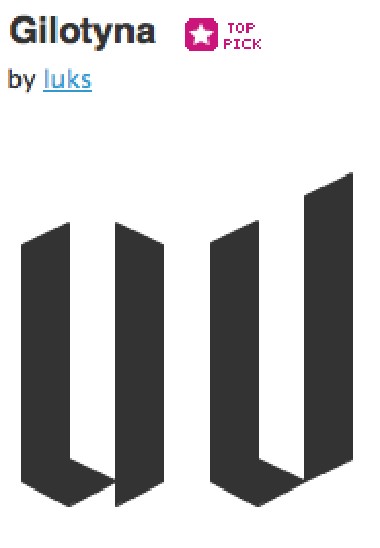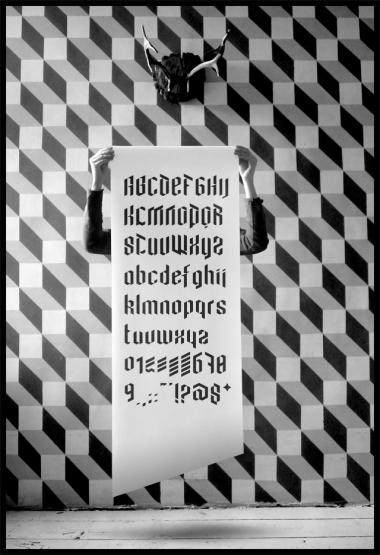
Gilotyna ex
luks
Gorgeous font! Be careful with the "A" and the "R": both are too similars in the short distances (you can try flip the upper part of the "A", b.e.; I'm going to make you a little sample soon).
Great work! I agree with elmo on some of the legibility issues, but all around, it is a fantastic font.
Congrats for the TP! Talking about the "V", it seems so similar to the "U", maybe you can try change it a little, like this way...